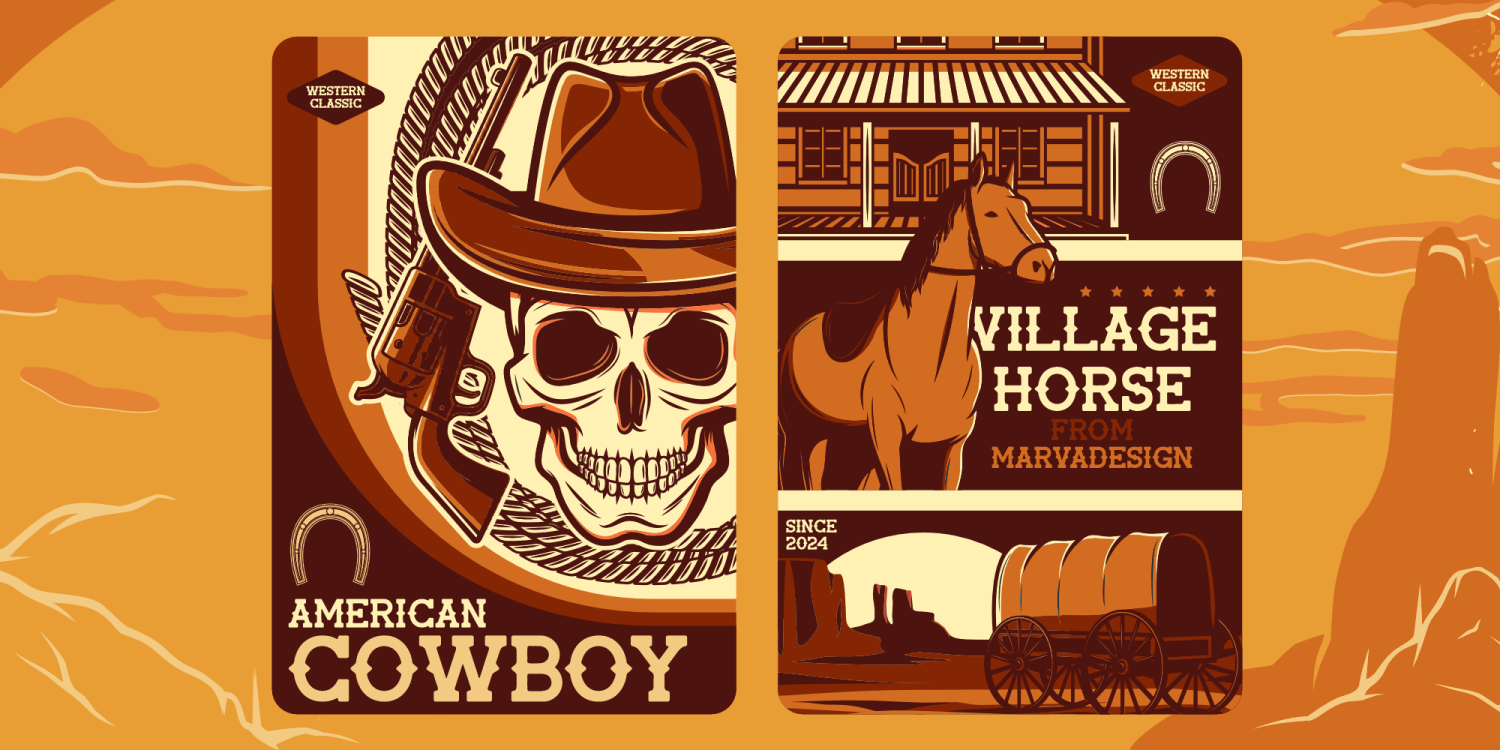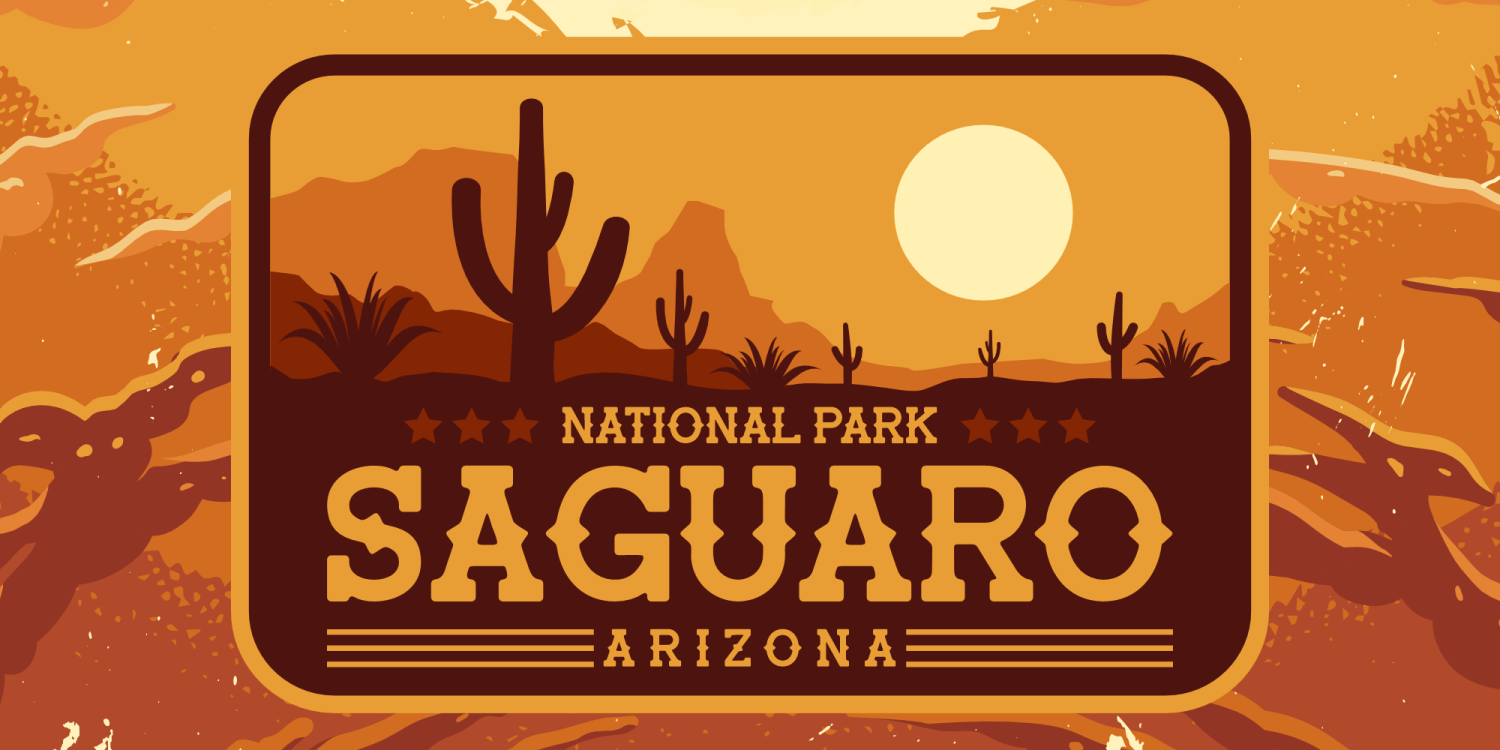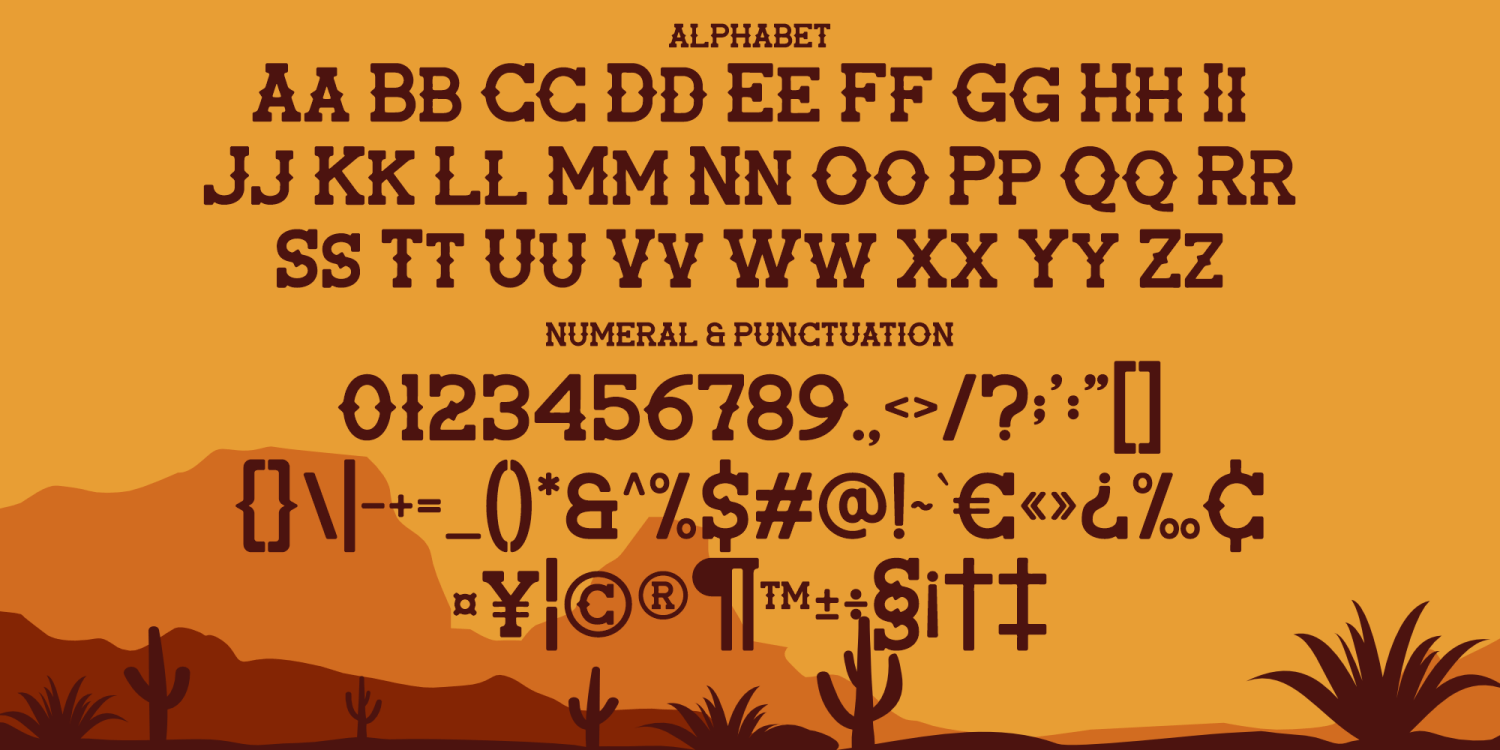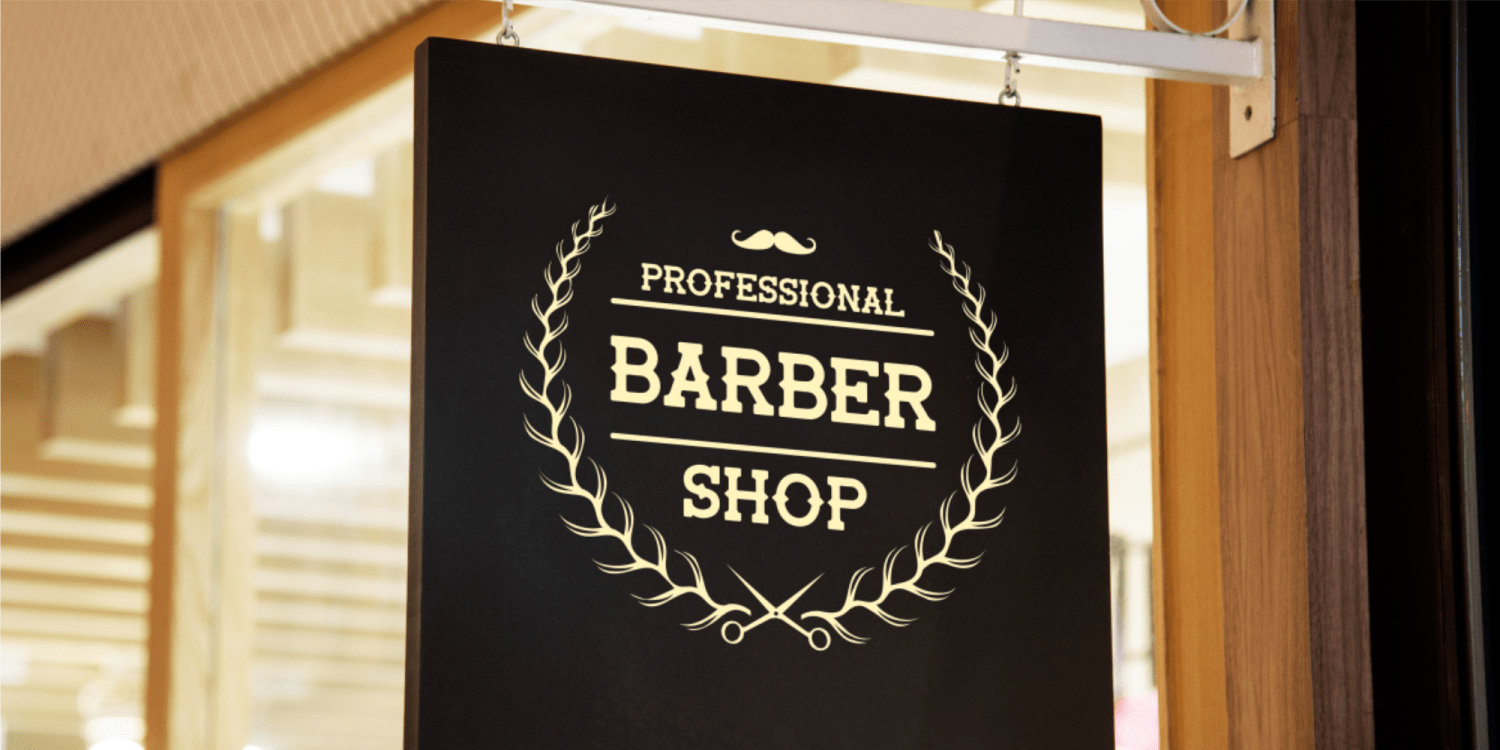
Village Horse
Font Family by Marvadesign
Introducing Village Horse typeface is a bold and distinctive Western display font, designed to evoke the rugged and adventurous spirit of the American frontier. With its thick, blocky serifs and slightly distressed edges, this typeface perfectly captures the essence of classic cowboy culture, making it ideal for vintage branding, poster designs, and themed projects.
The promotional materials showcase the typeface in various applications, featuring an Old West-inspired color palette dominated by warm browns, deep oranges, and sandy yellows. These elements are complemented by illustrations of a cowboy skull, a horse in front of a saloon, and a covered wagon—all reinforcing the Western aesthetic.